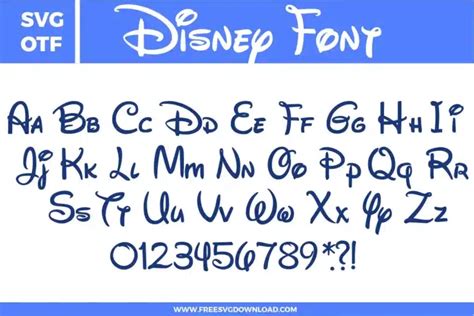
With our easy-to-use tool, you can create stunning designs inspired by your favorite Disney characters, movies and theme parks. Whether it's a personalized T-shirt, a birthday banner or a party invitation, our Disney font generator is perfect for adding that extra touch of magic to your project.
Disney is a household name that resonates with people of all ages. From their iconic characters to their theme parks, Disney plays an important role in entertaining and inspiring millions around the world. With our Disney font generator, you can create stunning DIY projects that capture the magic of Disney.
What is Disney Font Generator?
The Disney Font Generator is a free online tool that allows you to create unique fonts inspired by Disney characters and themes. You can choose from a variety of fonts and customize them with different colors, backgrounds, and styles to add a unique touch to your projects.
Why Use Disney Font Generator?
Using the Disney Font Generator allows you to add a touch of Disney magic to any project. Whether you are creating invitations, posters, or party decorations, the generator gives you access to hundreds of unique and creative fonts that will make your project stand out.
Disney vs. Other Fonts
| Disney | Other Fonts | |
|---|---|---|
| Design | Creative, colorful, and unique | Standard, predictable, and common |
| Recognition | Instantly recognizable and associated with Disney | No particular recognition or association with any brand or theme |
| Appeal to kids | High appeal to kids who love Disney characters | May not appeal to kids who are not interested in the particular theme |
| Versatility | Can be used in a variety of DIY projects like invitations, posters, and party decorations | May not be appropriate for all DIY projects or themes |
How to Use Disney Font Generator?
Examples of DIY Projects using Disney Font
The possibilities for DIY projects using Disney fonts are endless. Some of the popular DIY projects include:
- Birthday party invitations featuring the name of the party host in a Disney font
- Posters for a Disney-themed bedroom with quotes or names created in a Disney font
- Disney-themed party decorations like banners, table cards, and labels designed using Disney fonts
Our Opinion on Disney Font Generator
We believe that Disney Font Generator is a great tool for anyone looking to add a touch of Disney magic to their DIY projects. With hundreds of fonts to choose from and customization options, you can create unique and stunning projects that capture the essence of Disney. We highly recommend this tool to all Disney lovers who enjoy DIY projects.
Whether you are planning a Disney-themed party, designing a poster for your bedroom, or creating custom invitations, the Disney Font Generator is the perfect tool to unlock the magic of Disney. With its versatile fonts, customization options, and ease of use, this tool is a must-have for all DIY enthusiasts. Give it a try today and discover how easy it is to create stunning DIY projects with ease.
Thank you for reading our blog and exploring the limitless possibilities of our free Disney font generator. We hope our tool has inspired you to create DIY projects that perfectly capture the magic and wonder of Disney. With our user-friendly interface and vast collection of fonts, creating stunning designs has never been easier. What are you waiting for? Unlock the magic of Disney with our font generator today and let your creativity run wild!People Also Ask:
- Is the Disney font generator free to use?